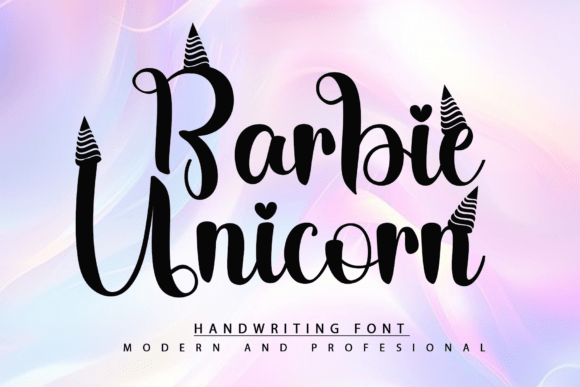
Enter the enchanting Barbie Unicorn Font, a sweet and cursive handwritten font that’s sure to add a touch of whimsy and romance to your designs. This lovely font is perfect for adding a playful yet elegant touch to branding, logos, wedding invitations, greeting cards, and more. Whether you’re a seasoned pro or just starting out, the Barbie Unicorn Font is a valuable addition to any designer’s toolkit.
Barbie Unicorn Font Key Features
- Unique Characteristics: Whimsical and magical design, perfect for children’s books, fantasy stories, and unicorn-themed projects
- Style: Script font with flowing connections and elegant letterforms
Barbie Unicorn Font Review
Overall, I was excited to dive into the Barbie Unicorn Font, but my experience was a bit of a mixed bag. Here’s what I liked and didn’t like.
- The font is whimsical and playful, perfect for a children’s or fantasy-themed project.
- The unicorns in the font are adorable and well-designed, adding a fun touch to any text.
- The font is easy to read, even at smaller sizes, which is great for projects that require a lot of text.
- The font is not very versatile and may not be suitable for more serious or professional projects.
- The unicorns in the font can be a bit distracting, especially in larger text.
- The font is not available in as many languages as I would like, which can be a limitation for international projects.
While the Barbie Unicorn Font is a fun and playful addition to any project, it’s not the most practical or versatile font. I would recommend it for children’s projects or fantasy-themed designs, but it may not be the best choice for more serious or professional work.
Use the Barbie Unicorn Font to add a touch of whimsy and magic to your designs. Experiment with different font sizes, colors, and styles to create a unique look.